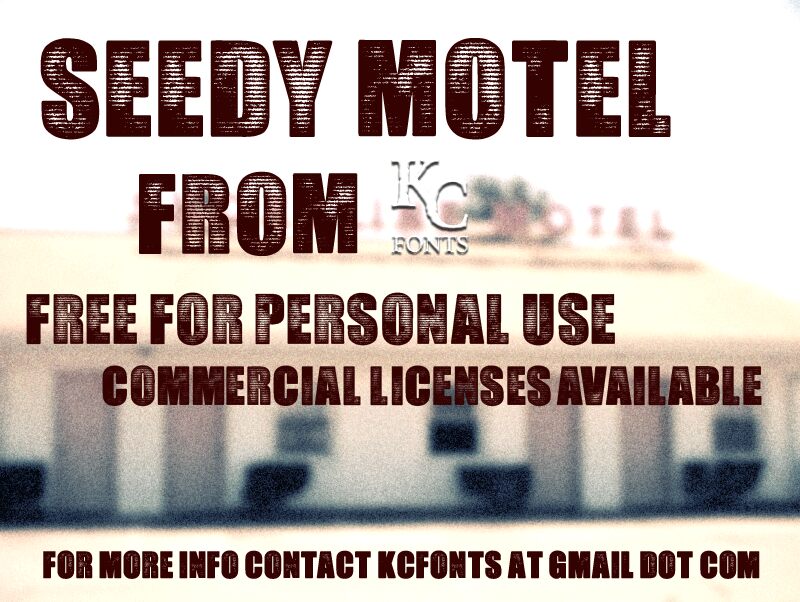
Seedy Motel by Kevin Christopher of KC Fonts is a free eroded display font with massive, tightly fitted capitals and a rough roadside attitude. Its broad shapes are scarred by dense horizontal scratches that resemble scraped paint or weathered signage. The damage is uneven enough to keep each letter lively.
Roadside decay and low-budget horror make its clearest territory. For motel branding, thriller posters, garage-rock album covers, and distressed packaging, the heavy silhouette provides immediate impact, and in magazine features it can turn a headline into part of the photographed, rusted, or timeworn setting rather than a clean, detached caption.